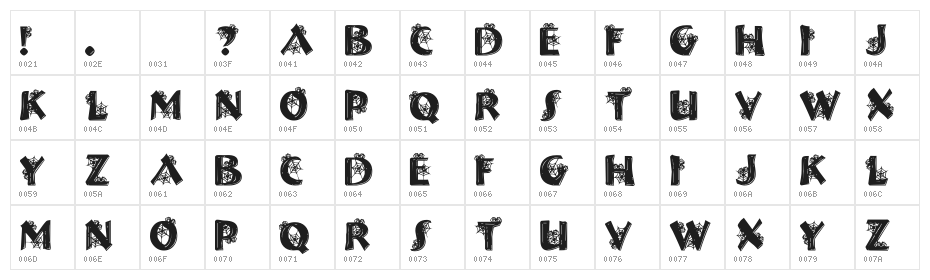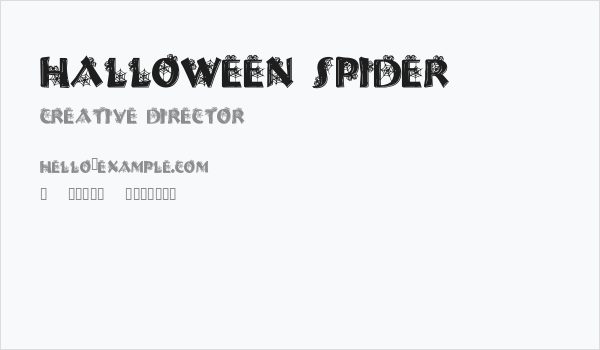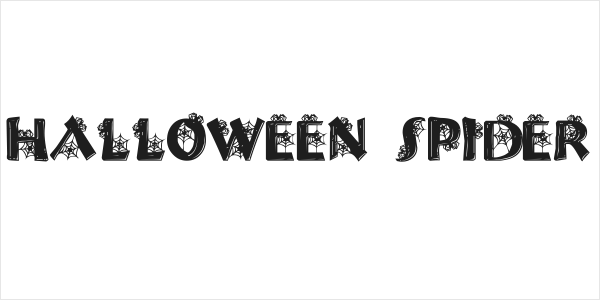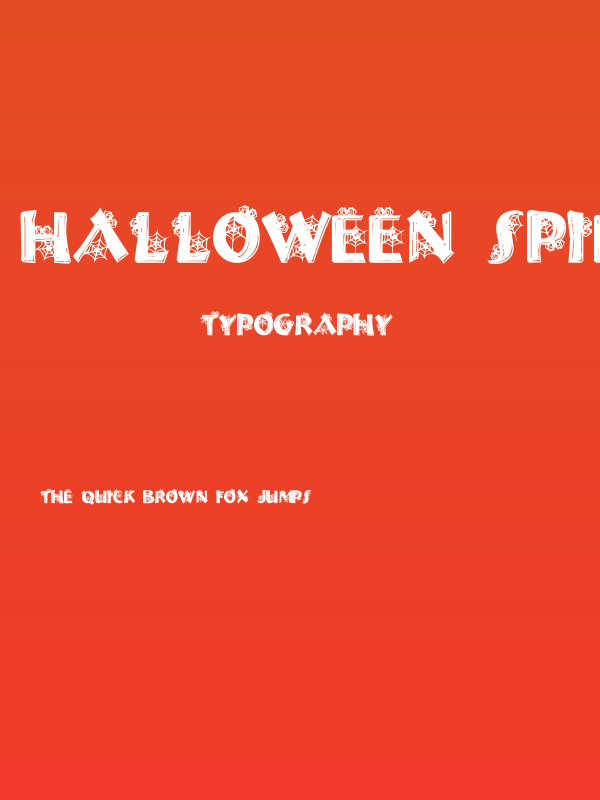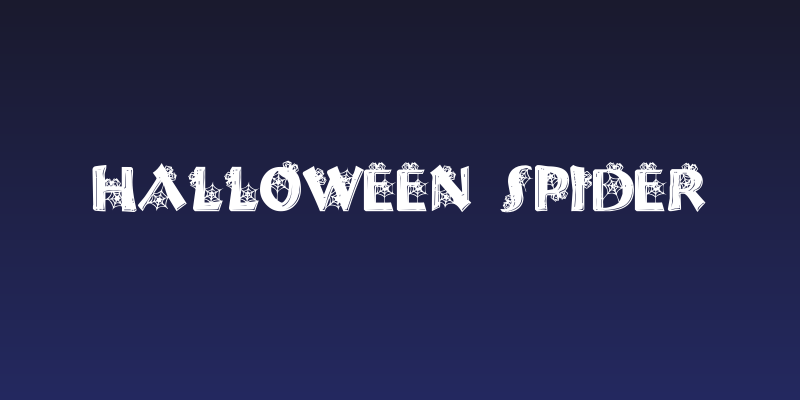
Halloween Spider Font
Halloween Spider Description
This font features a playful and spooky design, perfect for Halloween-themed projects. Each character is adorned with intricate spider web patterns and small spider illustrations, adding a decorative and thematic touch. The bold, uppercase letters are designed to stand out, making them ideal for headlines or titles. The font captures the essence of Halloween with its unique and creative style, combining elements of fun and fright. The characters are well-spaced, ensuring readability while maintaining the decorative elements. This font is a great choice for seasonal events, party invitations, or any project that requires a touch of Halloween spirit.